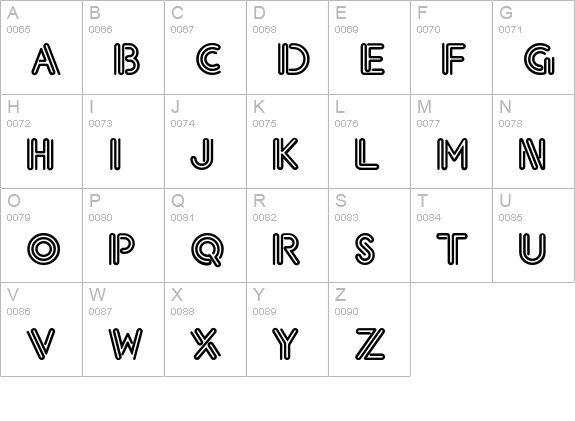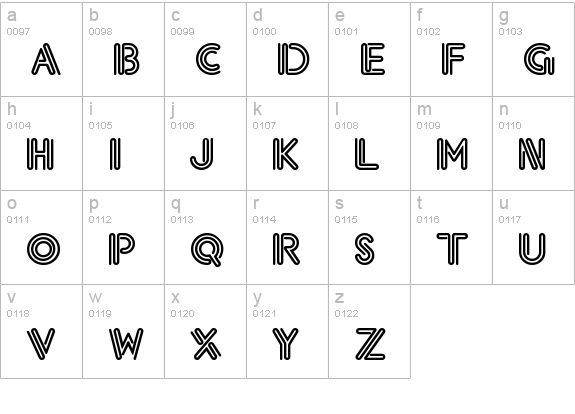
Elektron Font Details
Elektron font is a modern and sleek typeface that exudes a sense of sophistication and elegance. Its clean lines and sharp edges make it perfect for creating professional and eye-catching designs. The geometric shapes of Elektron font give it a futuristic and avant-garde feel, making it ideal for projects that require a contemporary touch. What sets Elektron font apart is that it is not only stylish and versatile, but also free to use. That's right, you can download Elektron font for free at FontsMarket.com. Whether you're working on a branding project, a website design, or any other creative endeavor, Elektron font will elevate your work to the next level. Don't miss out on the opportunity to add this exceptional font to your collection today!